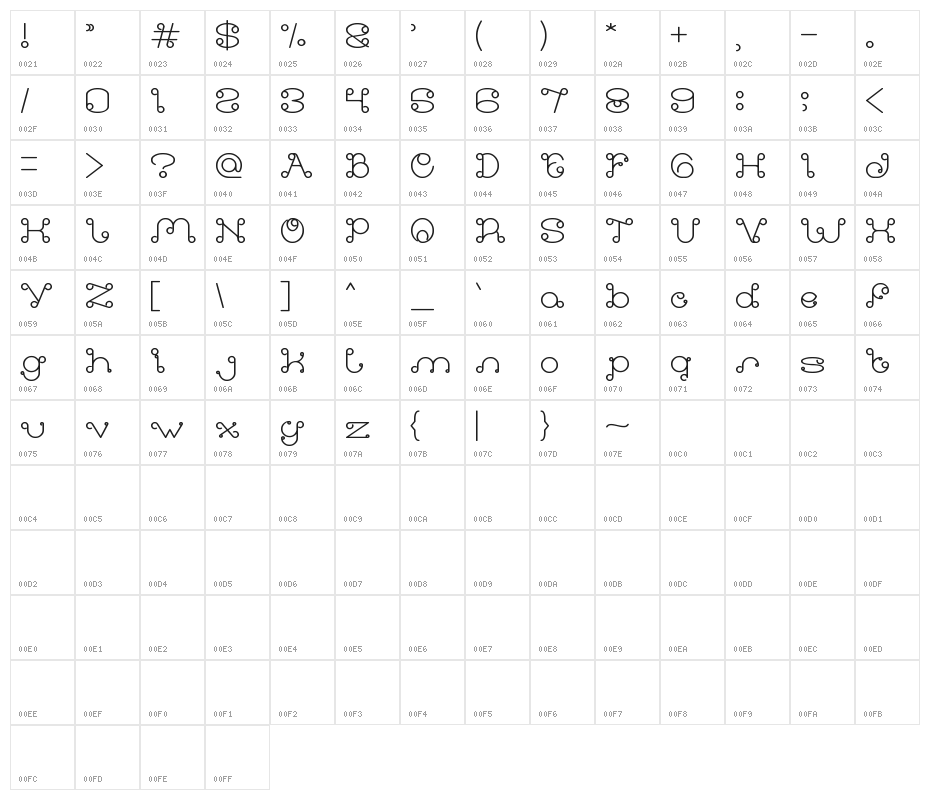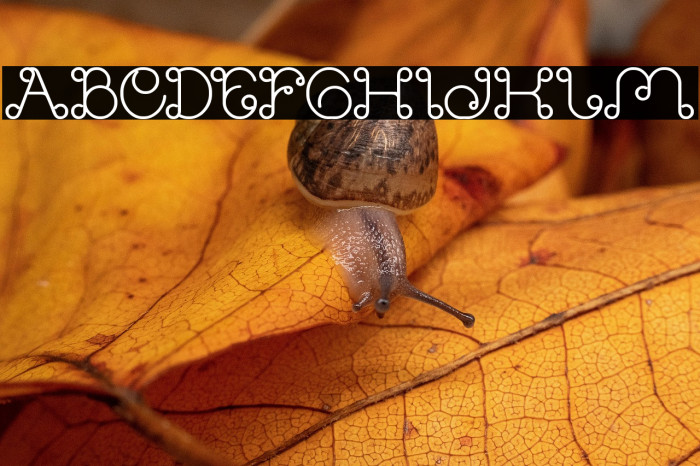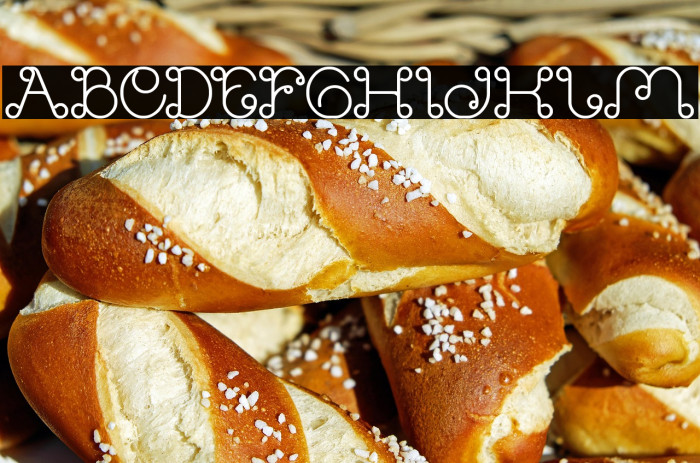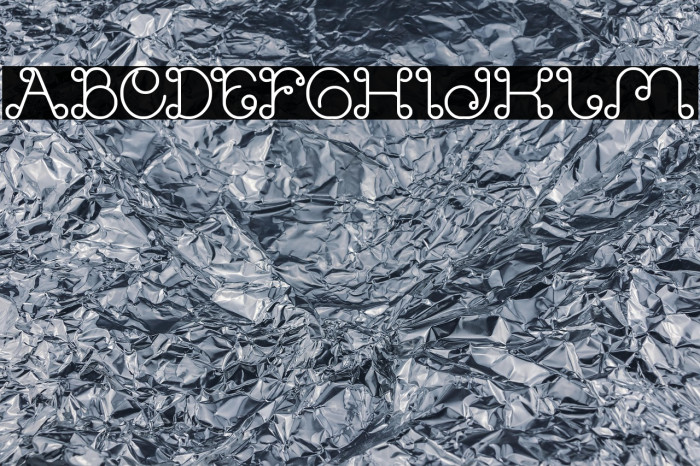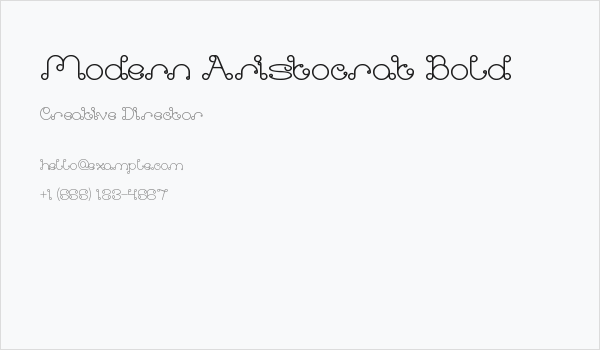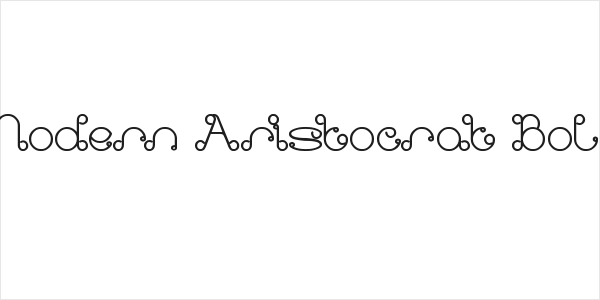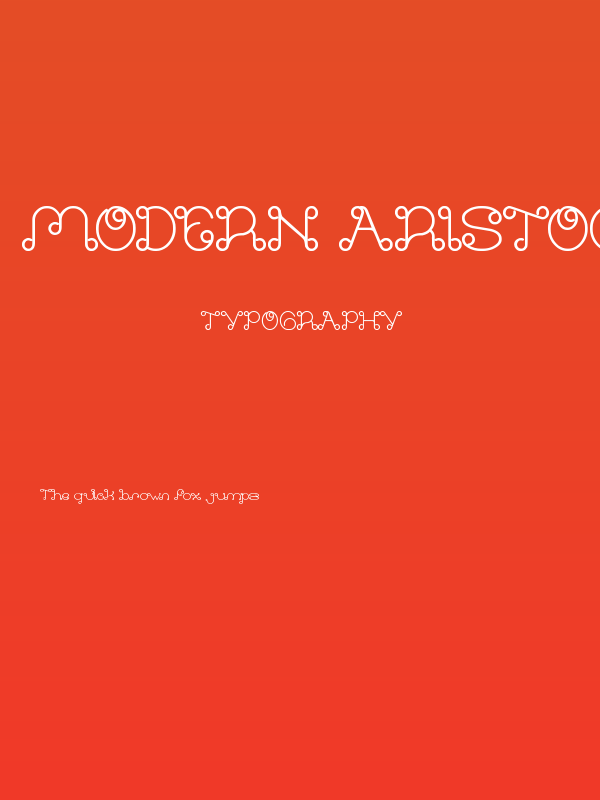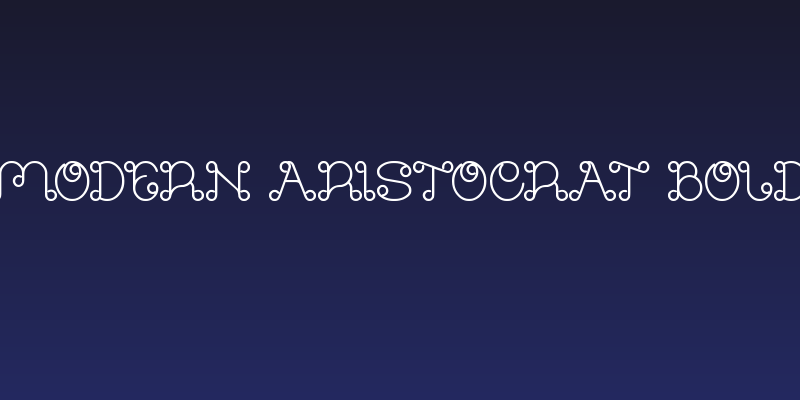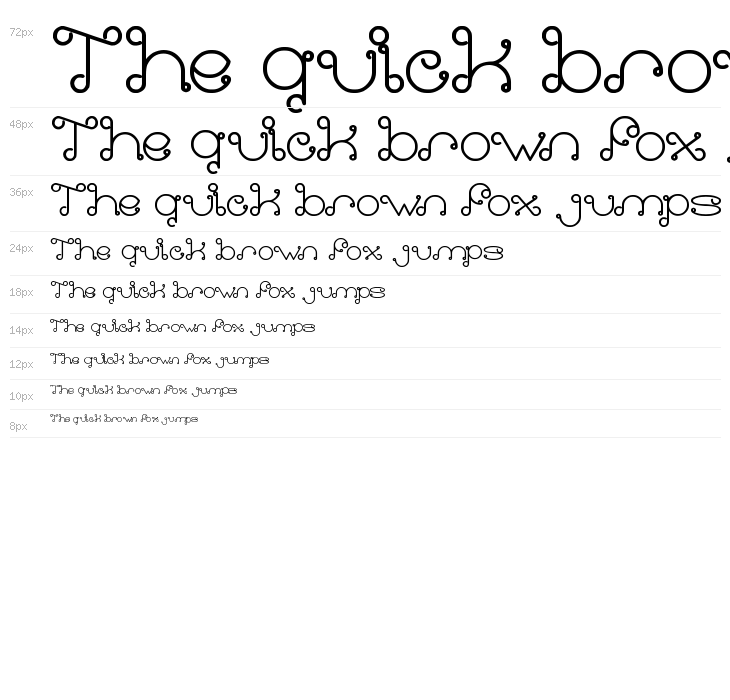
Modern Aristocrat Bold Font
Modern Aristocrat Bold Description
This font features a unique and playful design with a modern twist. Each character is crafted with a series of loops and curves, creating an intricate and decorative appearance. The uppercase and lowercase letters maintain a consistent style, with rounded terminals and a whimsical flair. Numbers and special characters follow the same design principles, ensuring a cohesive look across all text. The font's boldness adds to its striking visual impact, making it ideal for attention-grabbing applications.
| Proposed Projects | Ideal for creative projects such as posters, invitations, branding, and packaging where a distinctive and artistic touch is desired. |